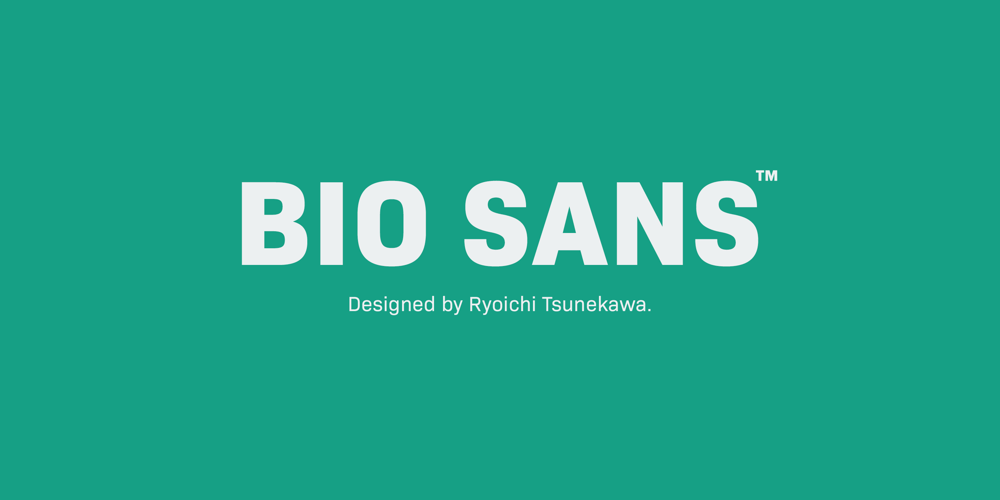
Bio Sans Font Family was designed by Ryoichi Tsunekawa and published by Dharma Type. Bio Sans contains 12 styles and family package options. Bio Sans is a super neutral sans-serif family for text designed by Ryoichi Tsunekawa and the whole family consists of 6 weights from ExtraLight to ExtraBold and their matching Italics. The basic concept of this family is the same as Bebas Neue which is our most popular free font and used all over the world, that is to say, Neutral, Natural, Minimal, Harmless, Super-flat, Transparent and Legible. The basic skeleton of their letterform was designed geometrically and the sophisticated design gives them universality, neutrality and sense of unity for the use in all media, all purposes and their large x-heights makes this family legible and readable even on small size screen. Bio Sans supports almost all European languages: Western, Central, South Eastern Europeans and afrikaans. And proportional figures, superior figures, inferior figures, denominators, numerators, fractions, ordinals and case-sensitive-forms can be accessed by using OpenType features.